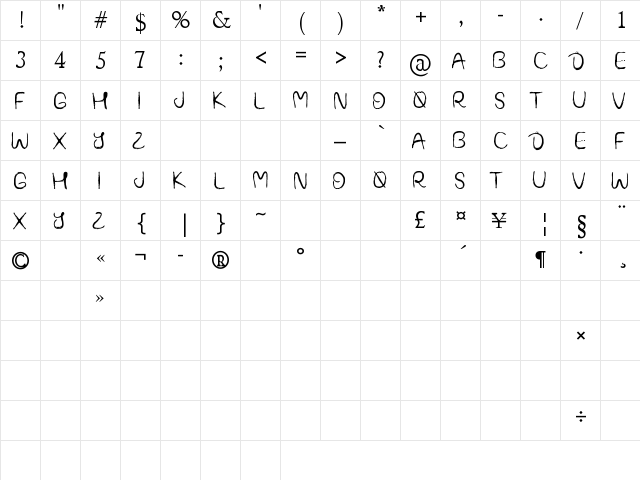
BEDOUIN Regular
| Designer | Zaffar Sabbir |
Design Context for BEDOUIN Typeface
BEDOUIN is a composed and adaptable typeface that performs quietly and consistently across a wide range of design contexts.